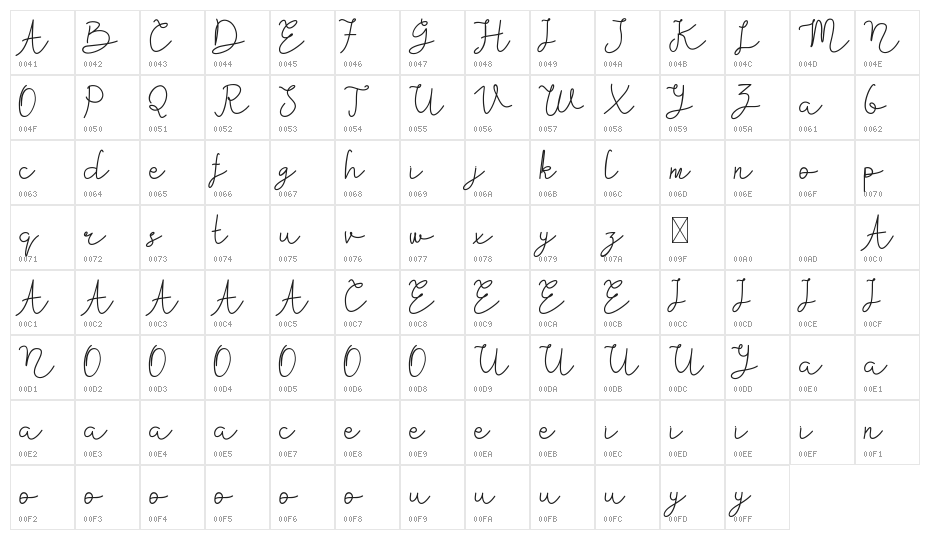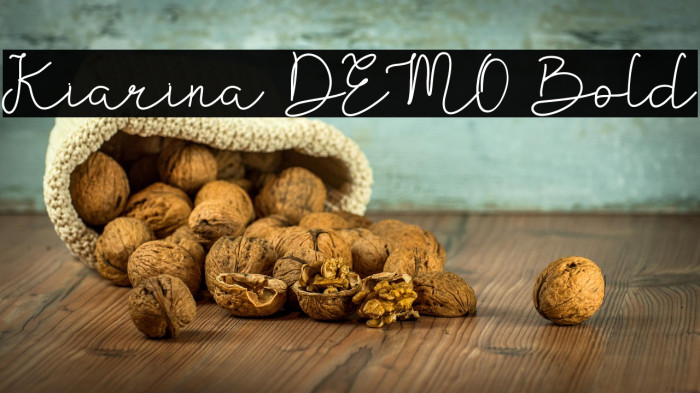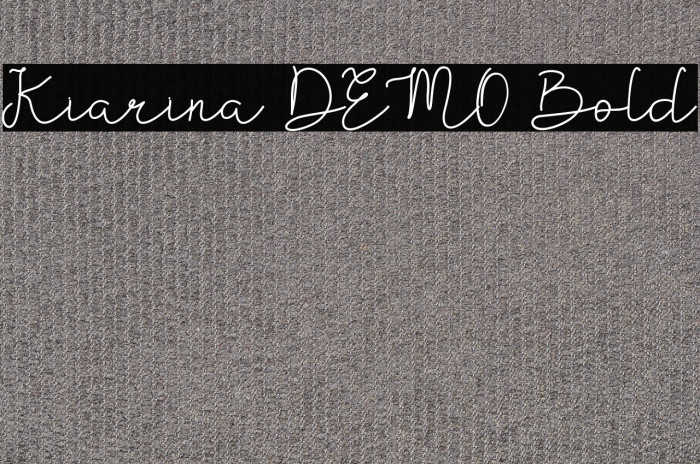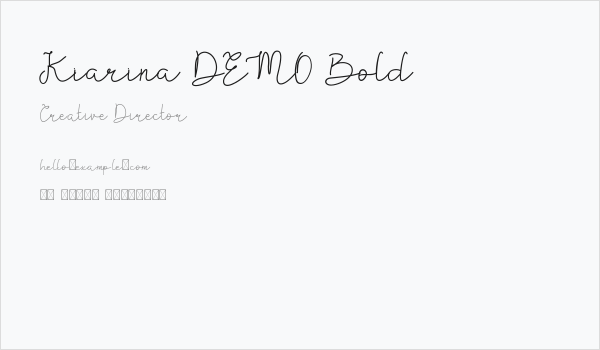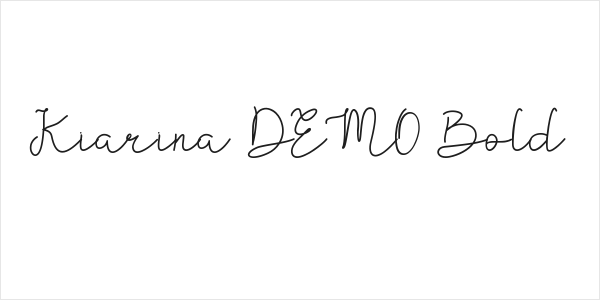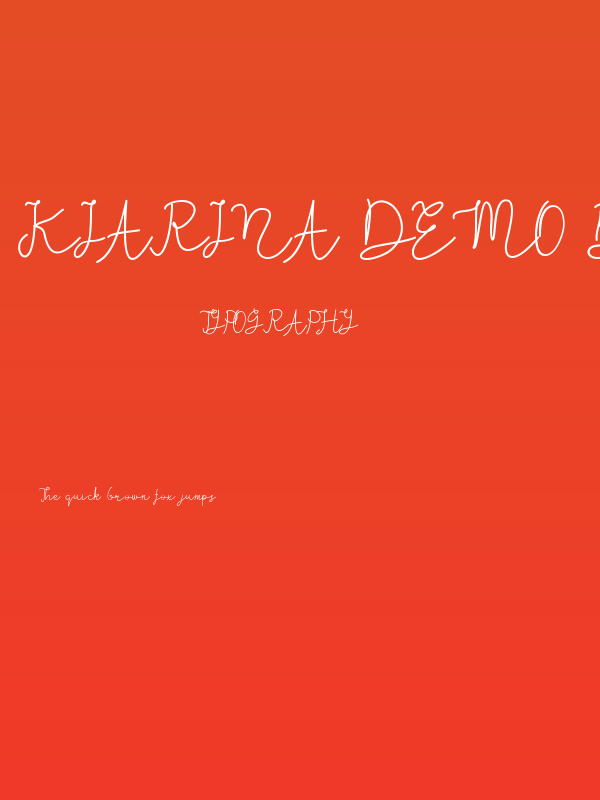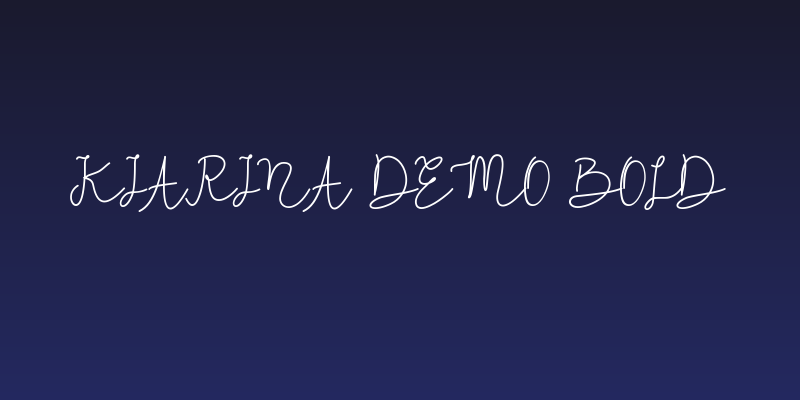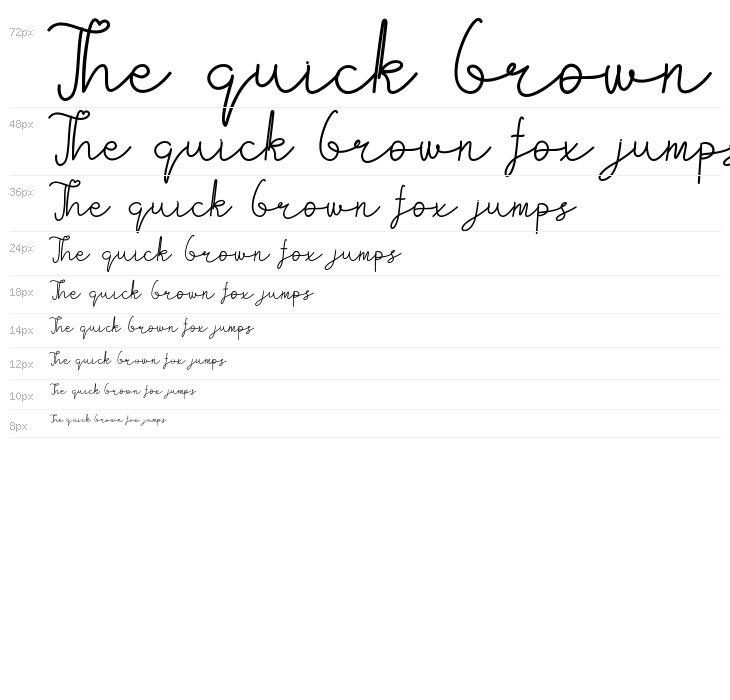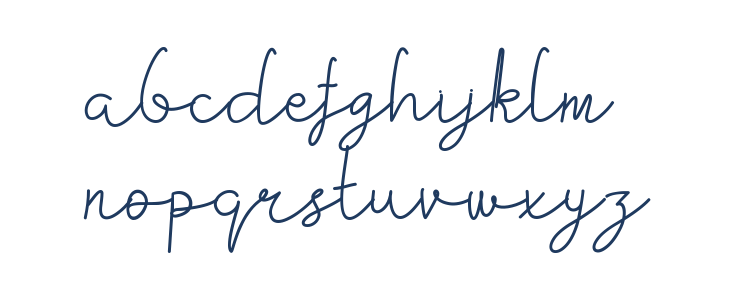
Kiarina DEMO Bold Font
Kiarina DEMO Bold Description
This font exudes a charming and elegant handwritten style, characterized by its flowing, cursive script. The letters are interconnected, creating a seamless and fluid appearance that mimics natural handwriting. The strokes are smooth and consistent, with a slight variation in thickness that adds a touch of sophistication. The uppercase letters maintain a graceful and airy presence, while the lowercase letters are more compact yet equally stylish. This font is perfect for projects that require a personal and artistic touch, such as invitations, greeting cards, and branding materials. Its unique style makes it stand out, providing a sense of warmth and creativity.
| Proposed Projects | Ideal for invitations, greeting cards, branding, and artistic projects. |